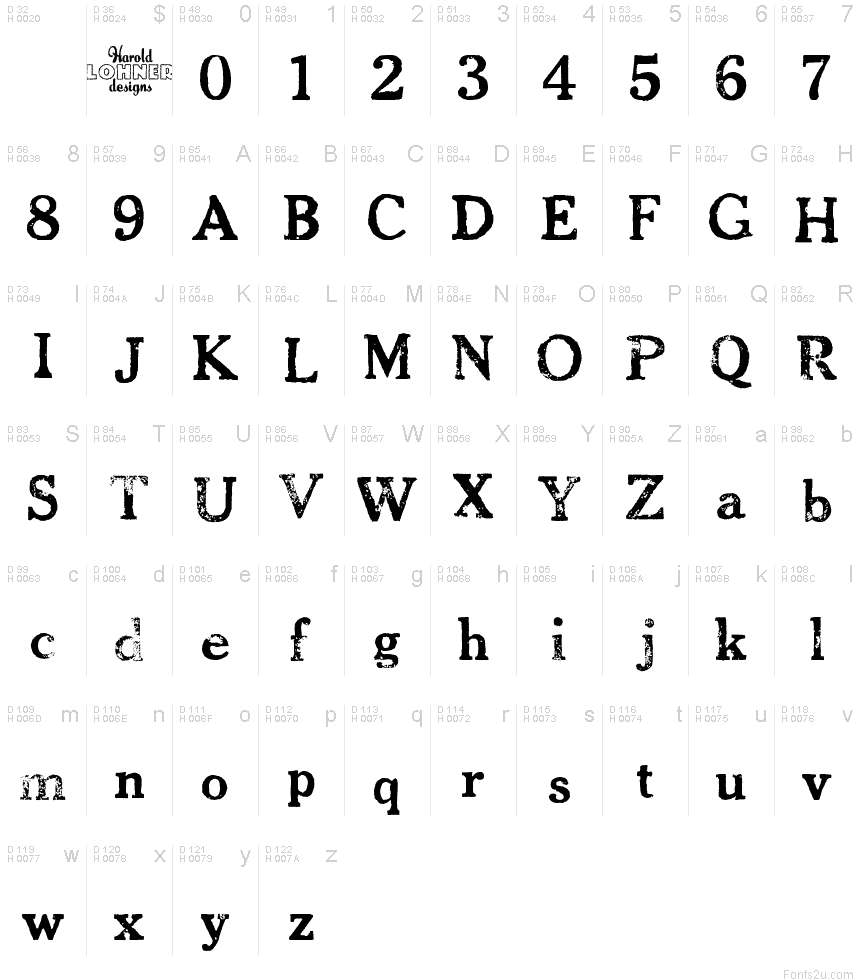
CheltPress Trial
Chelt Press font by Harold Lohner is a free eroded serif typeface that looks like it’s been pulled straight from a battered letterpress drawer. Chunky letterforms, rough ink splatters, and crumbling edges give every word a scuffed, tactile weight, as if it’s been stamped again and again onto coarse paper. The spacing feels tight and urgent, so headlines hit hard while still staying legible at a glance.
Using Chelt Press, your titles instantly pick up that scraped, analog grit that digital effects rarely capture. This free font shines on gig posters, horror or thriller covers, zines, vintage branding, craft beer labels, and moody social graphics. Keep it large for maximum texture and pair it with a clean geometric sans for body copy to let the distressed style breathe and stand out.